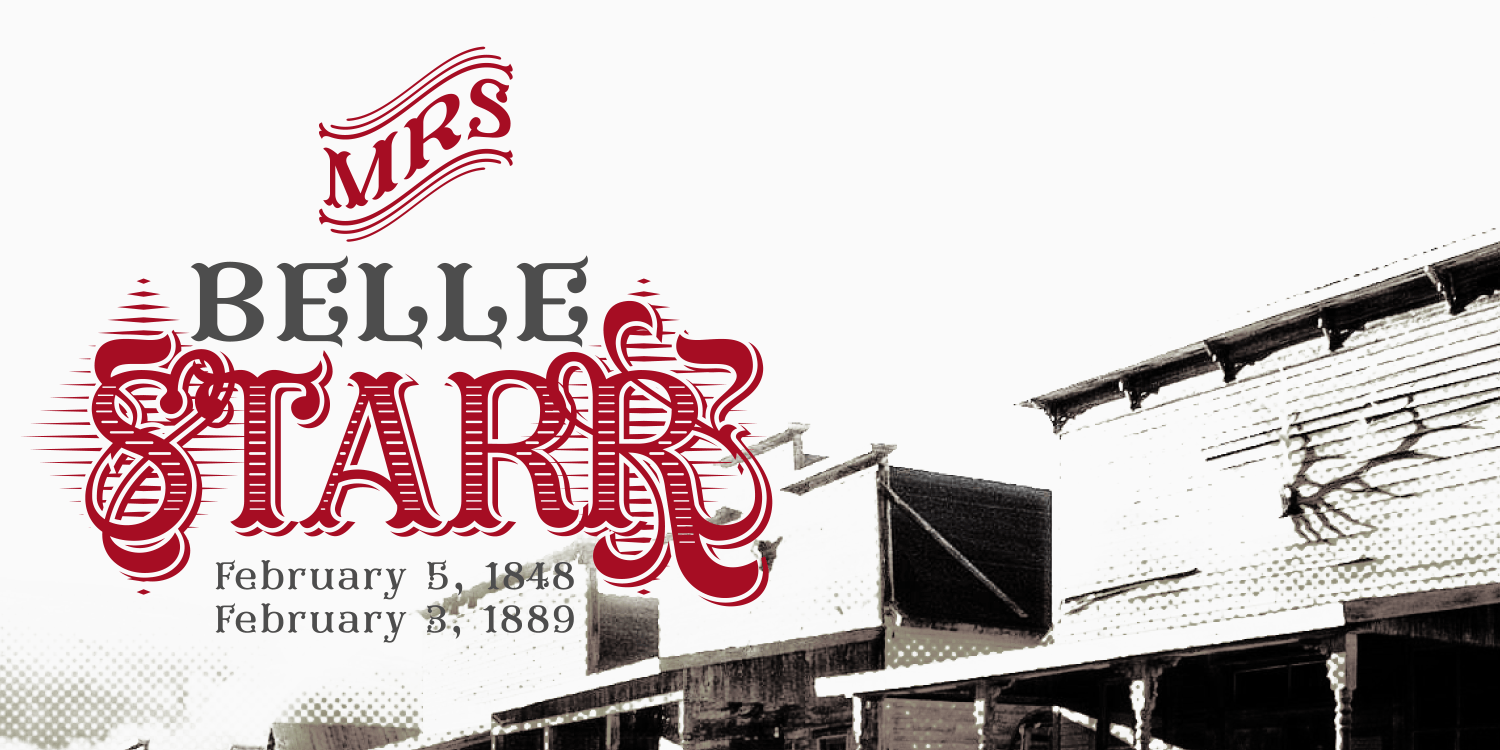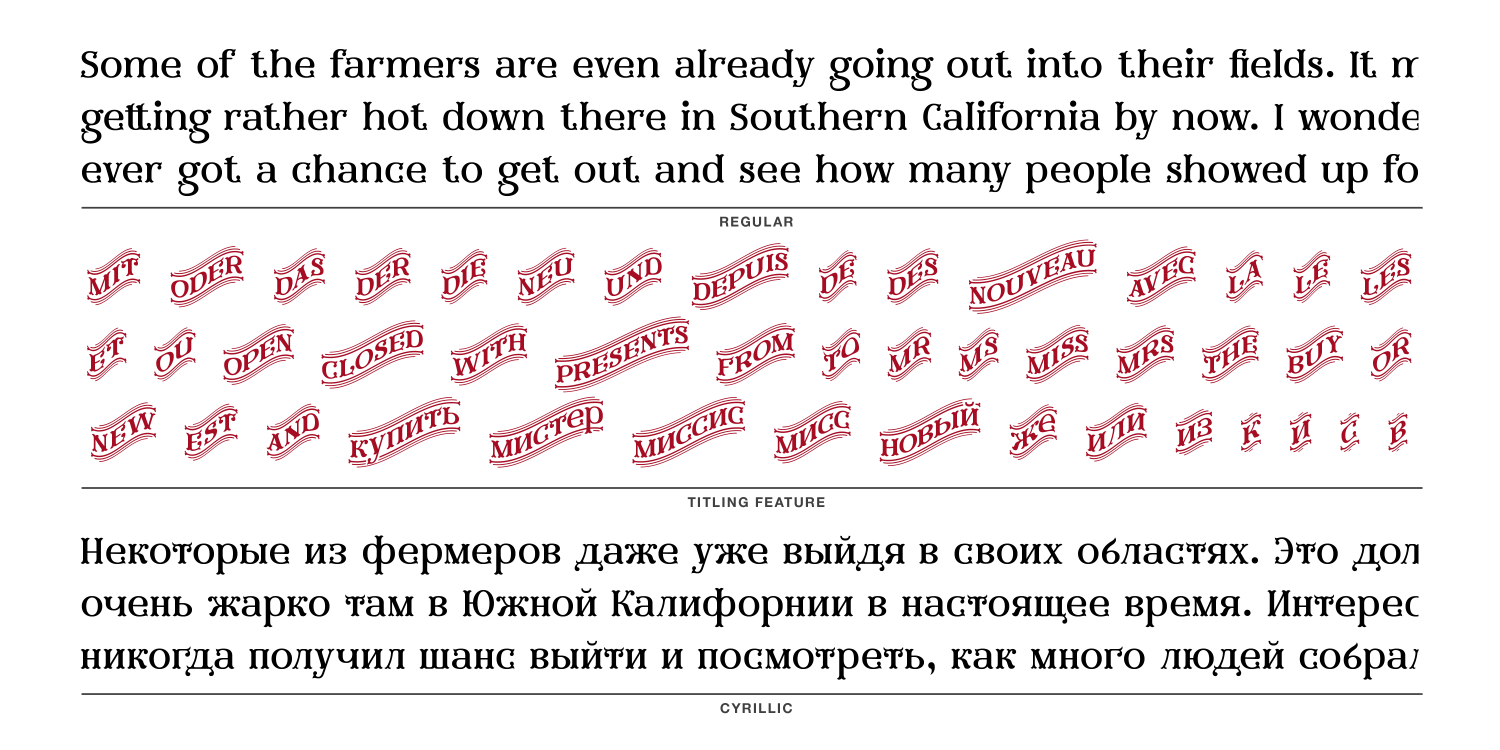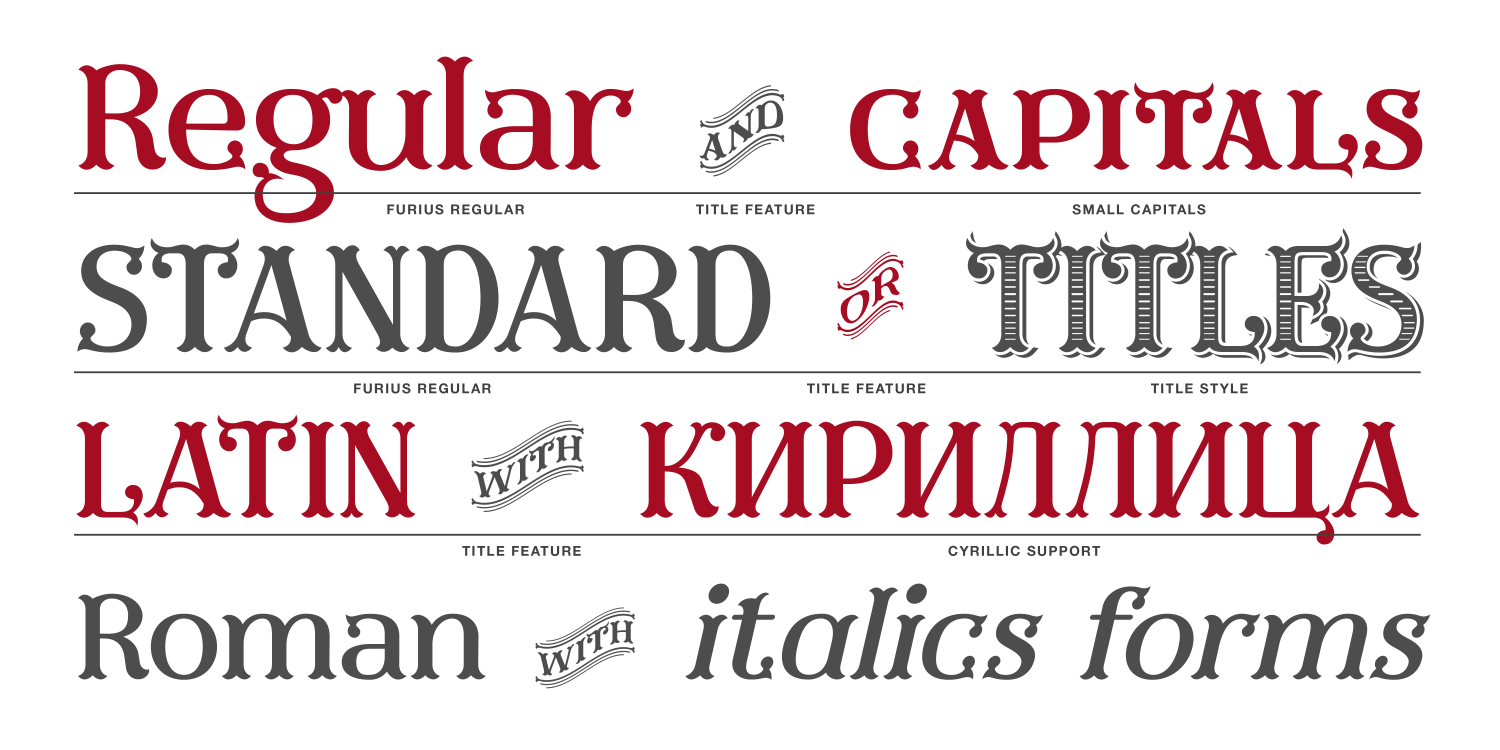
About Furius
Furius is a display typeface inspired by the split serif style of woodcut or chiseled letters found in roman inscriptions and later popularized by the western genre in the United States. Created as a display typeface, Furius combines a host of Opentype…